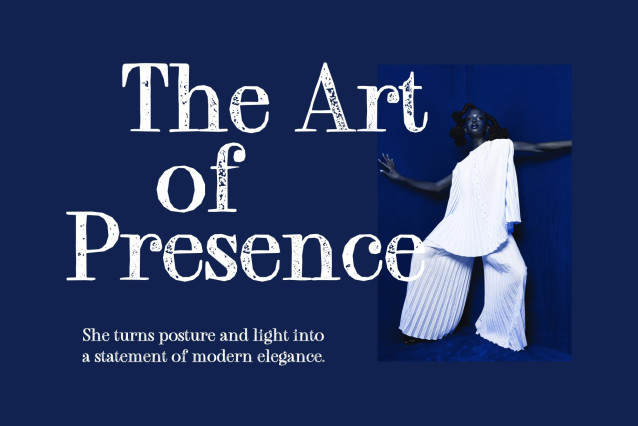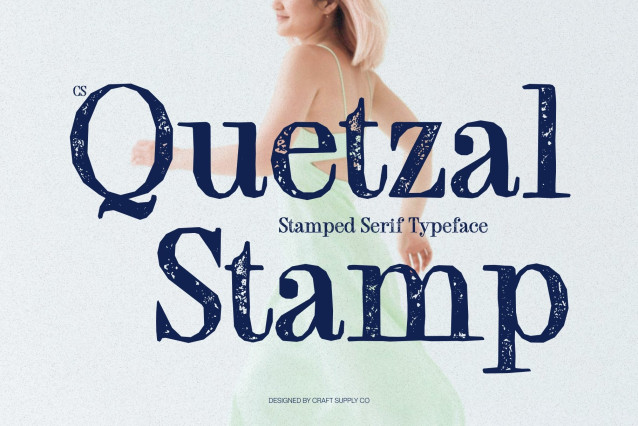
CS Quetzal Stamp – Modern Serif Font: Where Contemporary Elegance Meets Vintage Artistry
Long Slender Serifs with Refined Sophistication
This is a modern serif font designed with long, slender serifs and a balanced contemporary structure that radiates elegance and refinement. Its graceful proportions and clean lines create a polished visual rhythm allowing every composition to feel luxurious, stylish, and sophisticated. The delicate serif details enhance its timeless beauty while maintaining a modern aesthetic.
Classic Elegance with Contemporary Style
This font delivers a typographic voice that feels both high-end and versatile. Its sleek construction ensures readability while preserving a graceful and artistic appearance, making it ideal for premium design applications that seek beauty and professionalism.